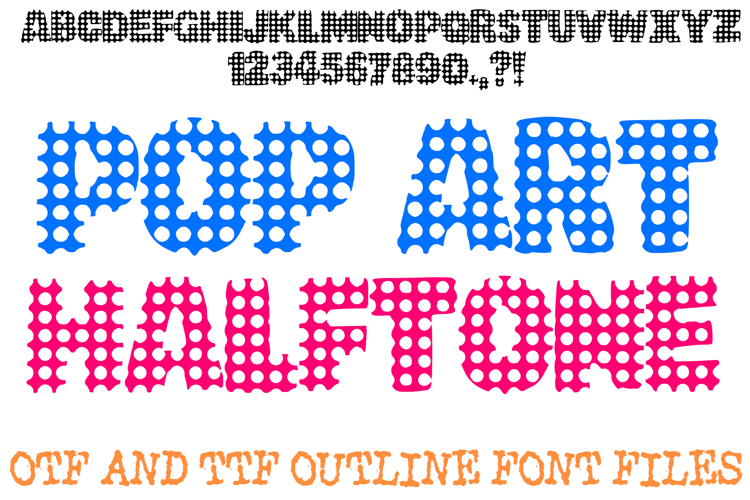
Pop Art Bold Font Halftone Typography Letters OTF ABC
Step back into the vibrant era of comic books and screen printing with the Pop Art Halftone Font! This bold display alphabet is defined by its classic halftone dot texture, meticulously arranged to mimic the iconic newsprint and Ben-Day dot style of 1960s pop art. It is the perfect creative choice for comic book lettering, retro posters, vintage-themed branding, or gritty urban graphics.
Each character is filled with a high-contrast dotted pattern that adds instant depth and a tactile, ink-on-paper feel to your digital designs. Whether you are crafting a superhero-themed birthday invitation, a zine cover, or eye-catching social media content, this font brings a nostalgic and artistic energy to every project.
Why You’ll Love This Retro Style:
Authentic Halftone Texture: Every letter features a consistent, high-resolution dot pattern for a genuine vintage print aesthetic.
Bold & High Visibility: The thick block silhouettes ensure your message is clear while showcasing the intricate internal texture.
Nostalgic Versatility: Seamlessly transitions between playful comic styles and sophisticated retro-modern branding.